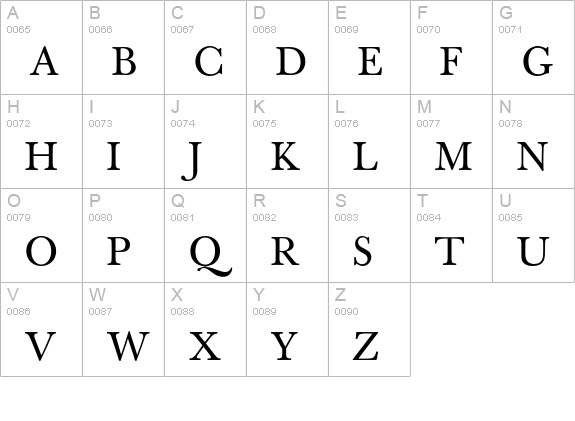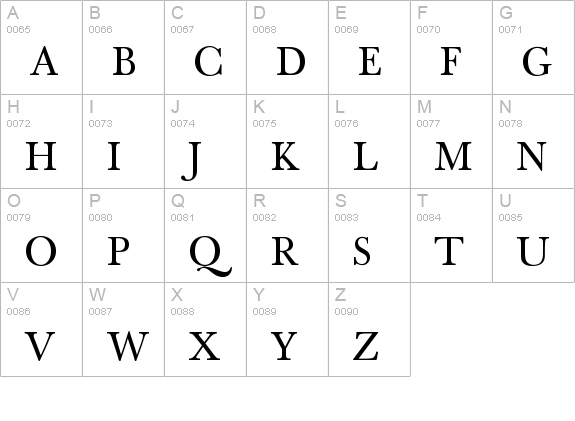
Berthold Baskerville Book Regular Font Details
Berthold Baskerville Book Regular is a comfortable, highly readable variant in the Berthold typeface family \xE2\x80\x94 well suited to long-form body text, articles, and editorial content.
Berthold Baskerville Book Regular font is a classic and elegant typeface that exudes sophistication and timelessness. Its graceful serifs and balanced letterforms make it perfect for a wide range of design projects, from branding to editorial design. This font strikes the perfect balance between tradition and modernity, making it a versatile choice for both print and digital applications. What's even better is that Berthold Baskerville Book Regular font is available for free download at FontsMarket.com. This means you can easily access this high-quality font without any cost, making it a valuable addition to your font library. Whether you're a designer looking to elevate your projects or a typographer seeking a reliable and beautiful typeface, Berthold Baskerville Book Regular font is a fantastic option that won't break the bank.